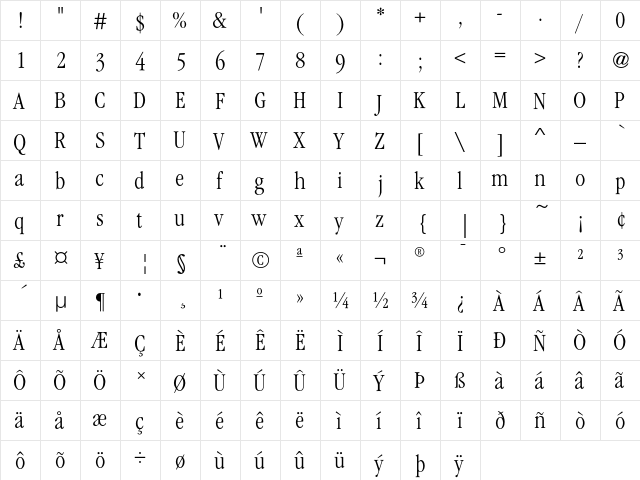
GaramondEF LightCondensed
Design Context for GaramondEF Typeface
GaramondEF is a composed and adaptable typeface that performs quietly and consistently across a wide range of design contexts. Its slender proportions lend an understated elegance to any composition. Its narrow stance lets it pack a punch even in space-constrained designs.